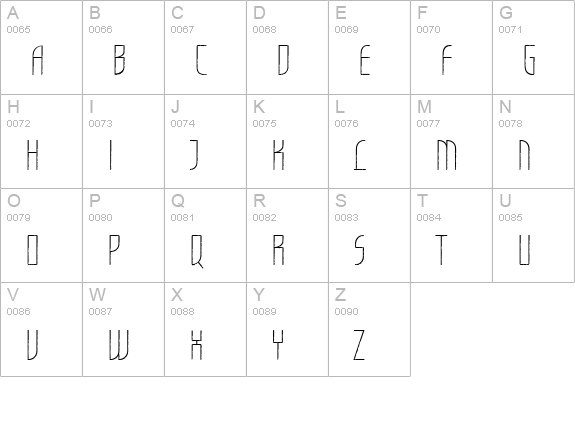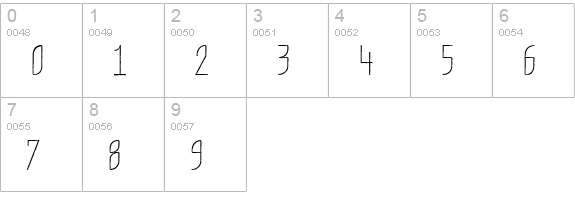
GrafiloneLLLight is a stunning and elegant font that combines modern design with a touch of sophistication. This versatile typeface exudes a sense of class and refinement, making it perfect for a wide range of projects, from branding to editorial design. With its sleek lines and graceful curves, GrafiloneLLLight is sure to make a lasting impression. The best part? GrafiloneLLLight is completely free to download at FontsMarket.com. Whether you're a designer looking to add a new font to your collection or a business owner in need of a fresh look for your branding, GrafiloneLLLight is the perfect choice. Don't miss out on this beautiful and stylish font – download it today and take your projects to the next level.